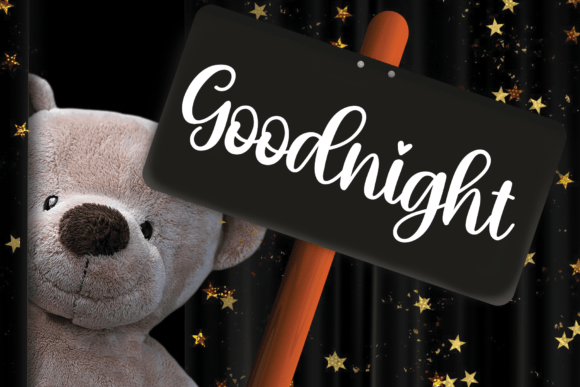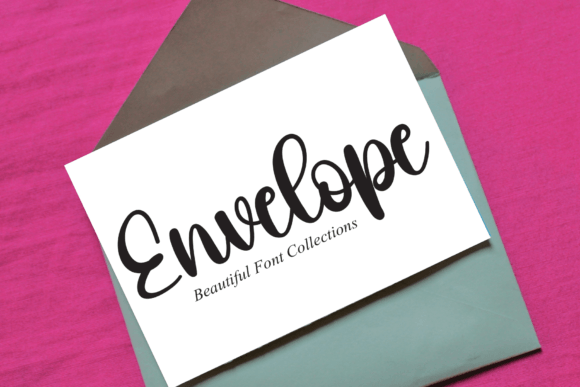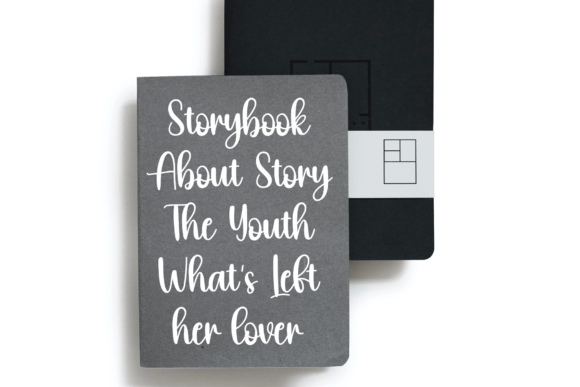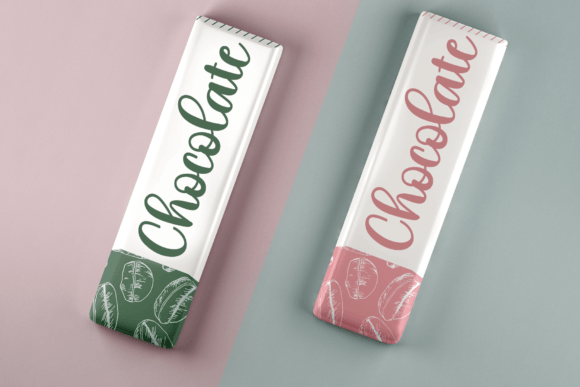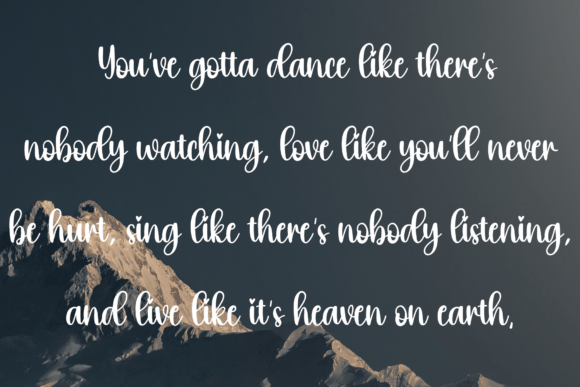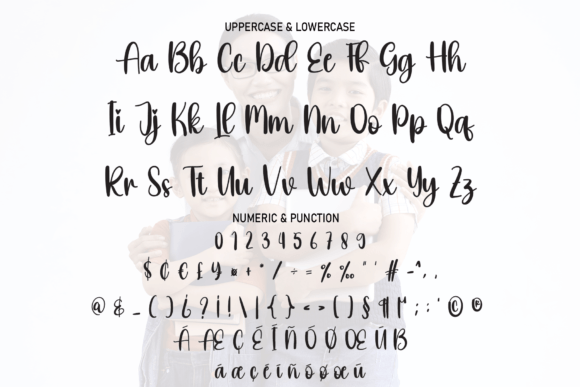
Introduction to Hey Teacher Font
Do you remember that moment when you stumbled upon the perfect design element, and your entire creative project came together? For designers, that ‘aha’ moment is what drives us to keep pushing boundaries. And for those who’ve been searching for a font that embodies the perfect blend of playfulness and professionalism, we’re excited to introduce the Hey Teacher Font.
This modern classic typeface is more than just a design resource – it’s a statement piece that can elevate your brand to the next level. With its transparent background and high-quality design, the Hey Teacher Font is perfect for designers who crave a versatile font that can be used for a wide range of creative projects. And the best part? It’s available for free download, making it an invaluable asset for designers of all levels.
Key Features of Hey Teacher Font
- High-quality design resource ideal for creative projects and educational materials
- Transparent background allowing for seamless integration with various design elements
- Unique characteristics include a playful and modern design aesthetic, making it perfect for educational and creative projects
Honest Review: Hey Teacher Font
I recently stumbled upon the Hey Teacher Font, and I must say it’s been a game-changer for my design projects. As a designer, I’m always on the lookout for high-quality design resources that can elevate my work. The Hey Teacher Font definitely fits the bill.
Here’s what works well: ✨ The font is highly customizable, allowing me to easily adjust the size, color, and style to suit my creative project’s needs. It’s also incredibly versatile, making it perfect for a wide range of designs, from educational materials to marketing campaigns.
- Transparency: The font comes with a transparent background, making it easy to overlay on top of other elements.
However, there are some limitations: ⚠️ The font may not be suitable for very large-scale projects, as it can become pixelated when enlarged. Additionally, some users may find the font’s style a bit too playful for certain designs.
Overall, I’m thoroughly impressed with the Hey Teacher Font. Its high quality, versatility, and ease of use make it a valuable addition to any designer’s toolkit. If you’re looking for a reliable design resource, I highly recommend giving it a try.
The Hey Teacher Font is a free design resource perfect for any creative project that requires a unique and eye-catching font. With a transparent background, this font can be easily customized to fit any design style.
Tips for Getting the Most Out of Hey Teacher Font
For the best results, use the Hey Teacher Font in conjunction with a high-quality design. Experiment with different font sizes, colors, and styles to create a unique look.
Common Use Cases for Hey Teacher Font
The Hey Teacher Font is perfect for any creative project, including educational materials, marketing materials, and personal projects. Its transparent background makes it easy to customize and use in a variety of design applications.